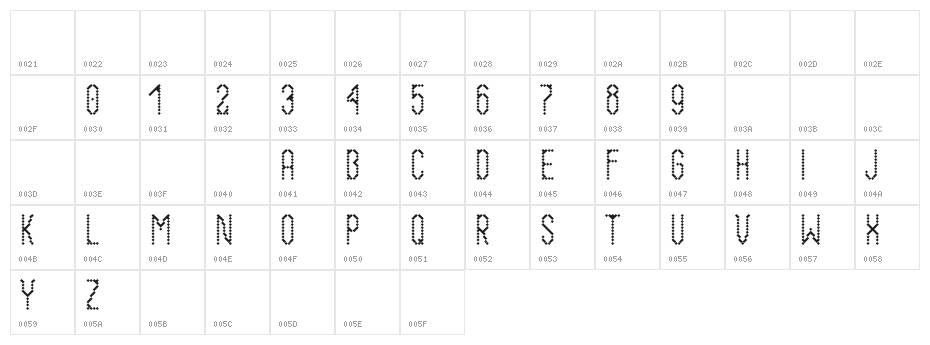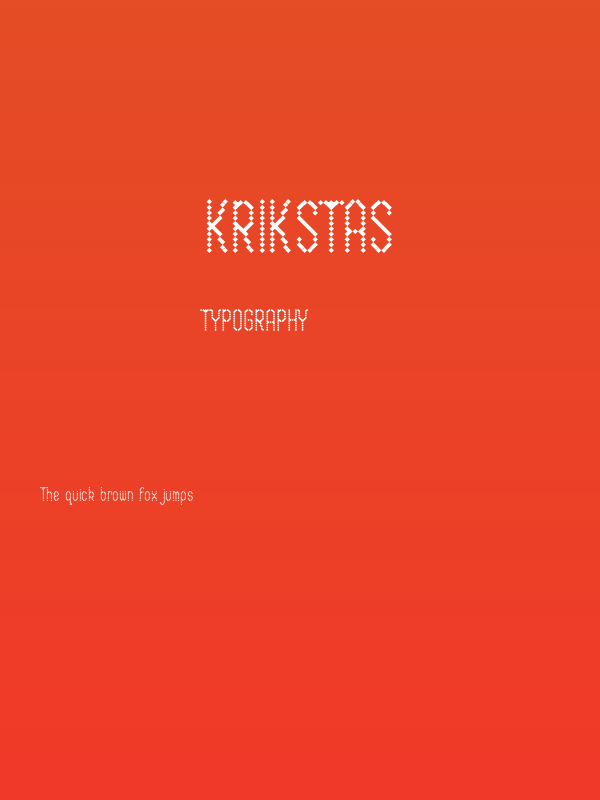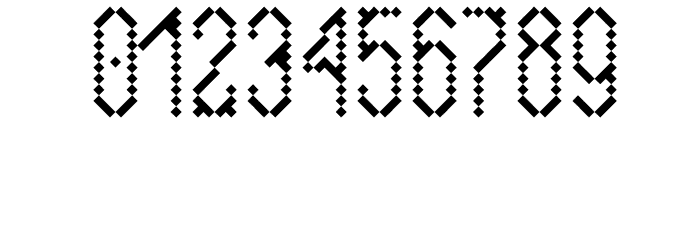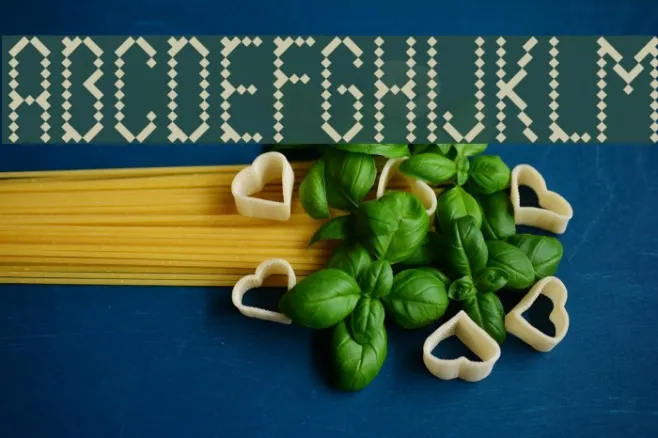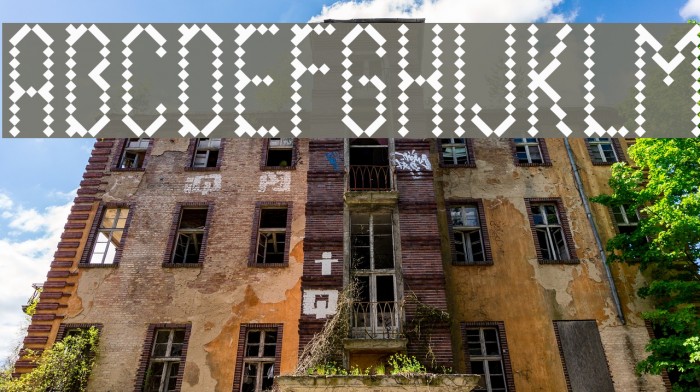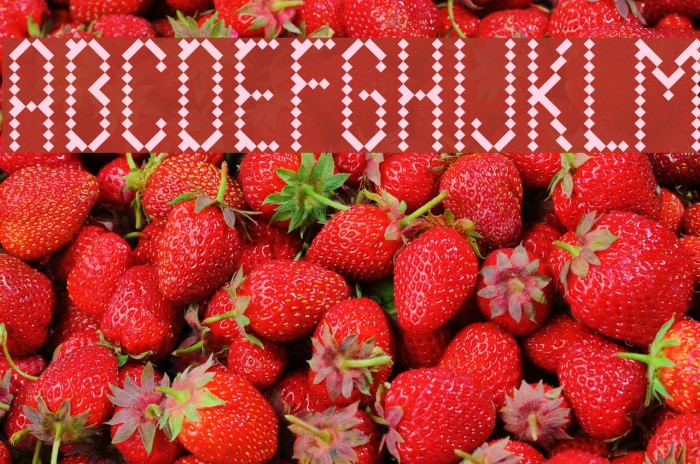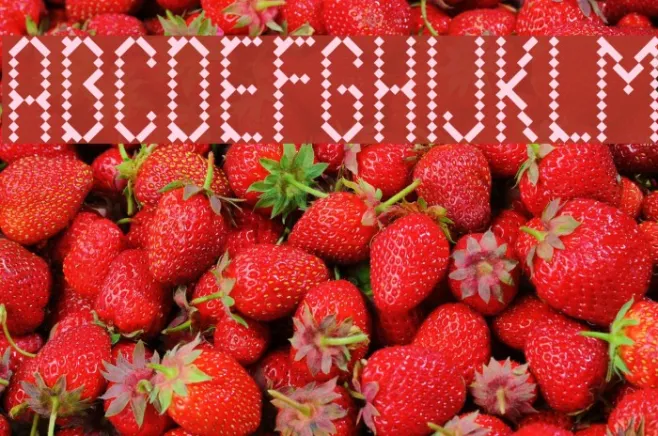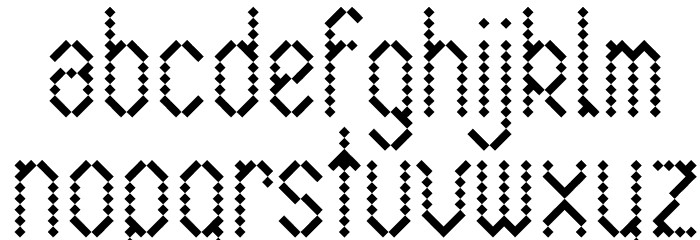
Krikstas Font
Krikstas Description
This font features a unique, pixelated design that resembles a pattern of interlocking diamonds. Each character is composed of small, square-like elements that create a textured, almost woven appearance. The uppercase and lowercase letters maintain a consistent style, with sharp angles and a bold presence. Numbers and special characters follow the same geometric pattern, ensuring uniformity across the typeface. The overall look is reminiscent of traditional embroidery or mosaic art, giving it a handcrafted and decorative feel.